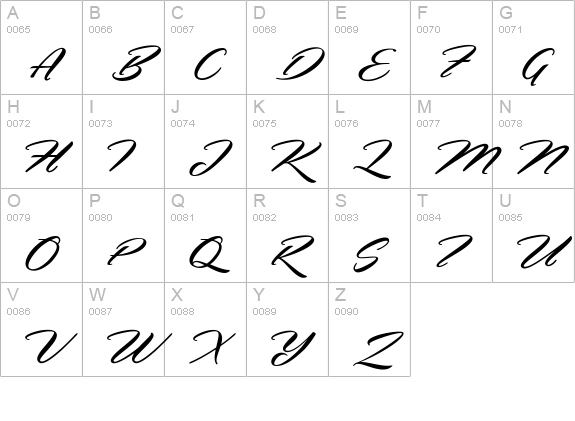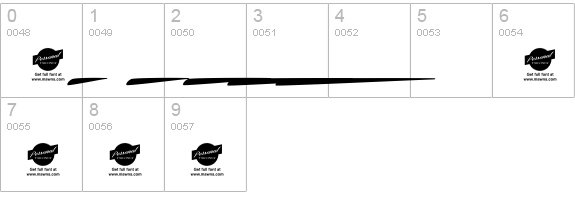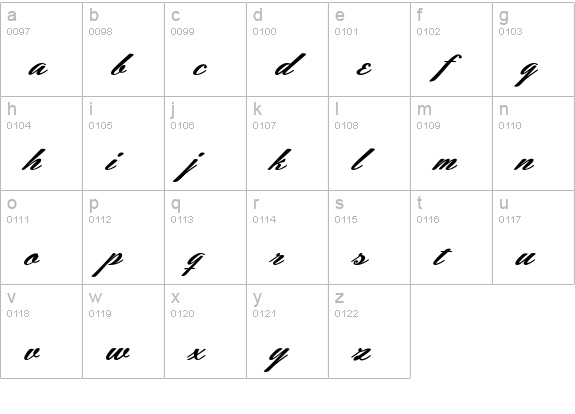
Hemmet Personal Use Only font is a stunningly beautiful typeface that exudes elegance and sophistication. Its unique blend of modern and classic elements makes it perfect for a wide range of design projects. With its clean lines and graceful curves, this font is sure to add a touch of refinement to any design. What sets Hemmet Personal Use Only font apart is the fact that it is completely free to use. Yes, you read that right – this incredible font is freely available to download at FontsMarket.com. Whether you're a professional designer or a casual user, you can now access this amazing font without any cost or restrictions. Designed with precision and attention to detail, Hemmet Personal Use Only font offers a wide variety of characters, including uppercase and lowercase letters, numbers, punctuation marks, and special symbols. Its versatility allows it to be used in various design projects, such as logos, posters, invitations, and more. Not only does Hemmet Personal Use Only font possess a timeless appeal, but it also ensures legibility and readability, even at smaller sizes. Its carefully crafted letterforms and generous spacing make it easy to read on both print and digital mediums. So, if you're in search of a high-quality, stylish font that won't break the bank, Hemmet Personal Use Only font is the perfect choice for you. Download it today from FontsMarket.com and unlock a world of creative possibilities. Whether you're designing for personal use or professional projects, this font will elevate your designs and leave a lasting impression on your audience.